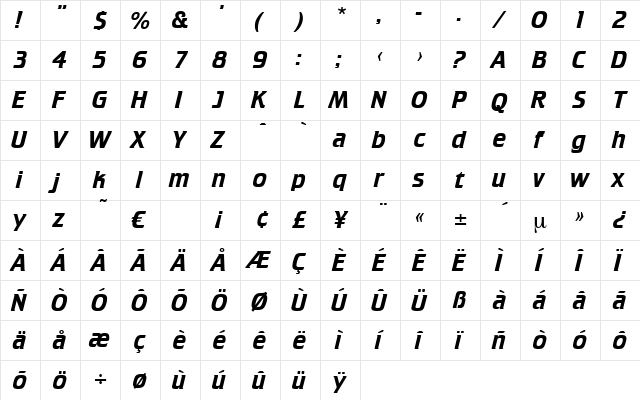
Stuttgart Regular
Design Context for Stuttgart Typeface
Stuttgart offers clean, dependable letterforms without strong stylistic allegiance, making it a practical choice for designers who need flexibility.